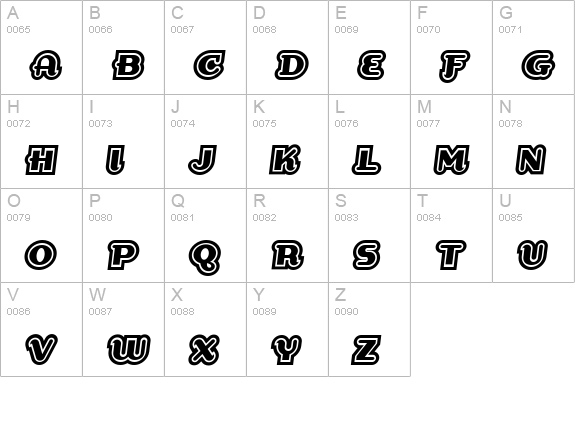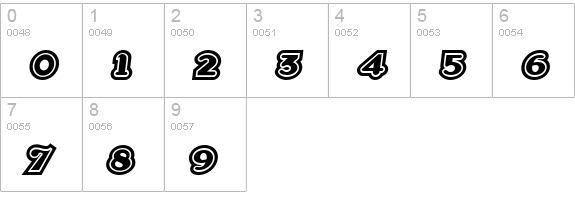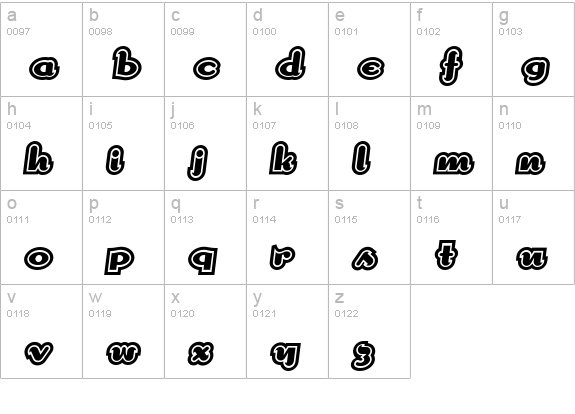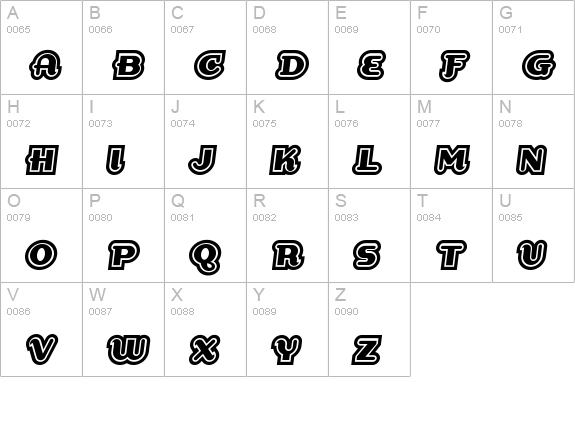
DogmaExtraOutline Font Details
DogmaExtraOutline font is a stylish and modern typeface that will make your designs stand out. With its sleek outlines and bold presence, this font is perfect for adding a contemporary touch to any project. The clean lines and sharp edges of DogmaExtraOutline give it a sophisticated and professional look that is sure to impress. The best part? DogmaExtraOutline font is completely free to download at FontsMarket.com. Whether you're working on a branding project, creating eye-catching posters, or designing a sleek website, this font will elevate your work to the next level. Don't miss out on the opportunity to enhance your designs with the sleek and modern aesthetic of DogmaExtraOutline font. Download it for free today and start creating impactful designs that leave a lasting impression.